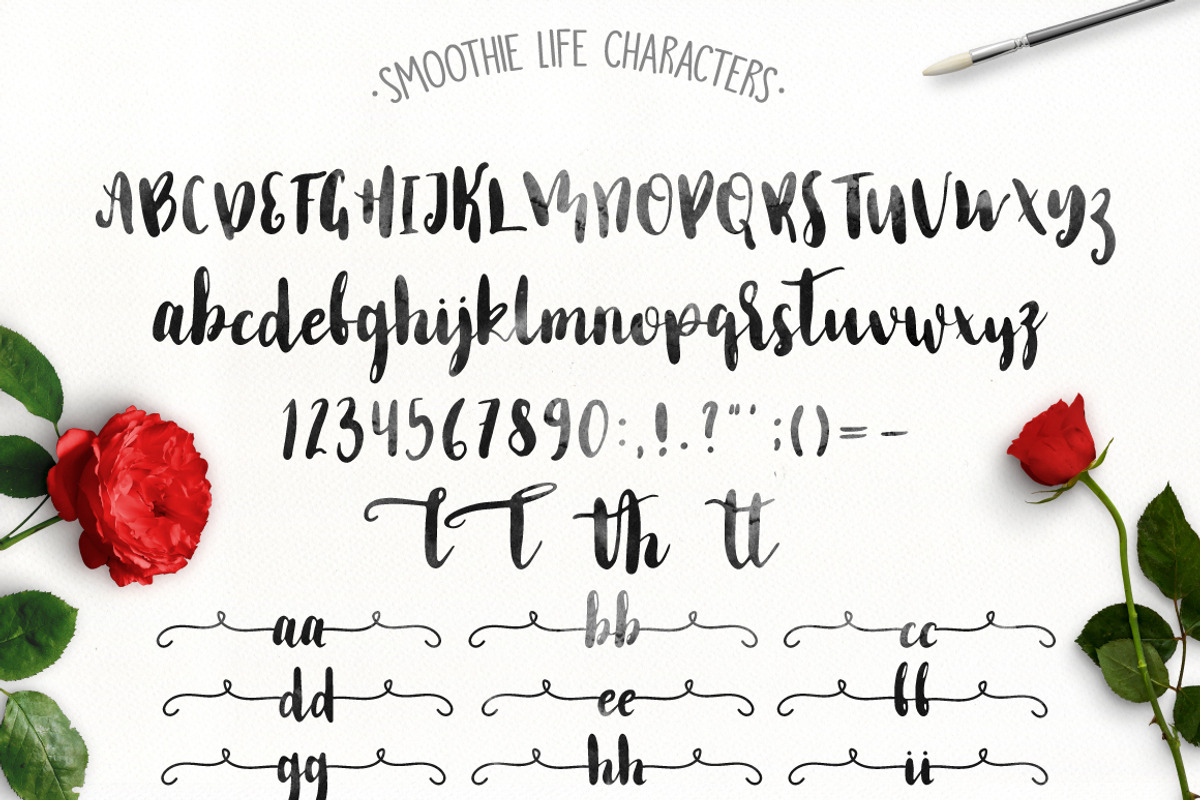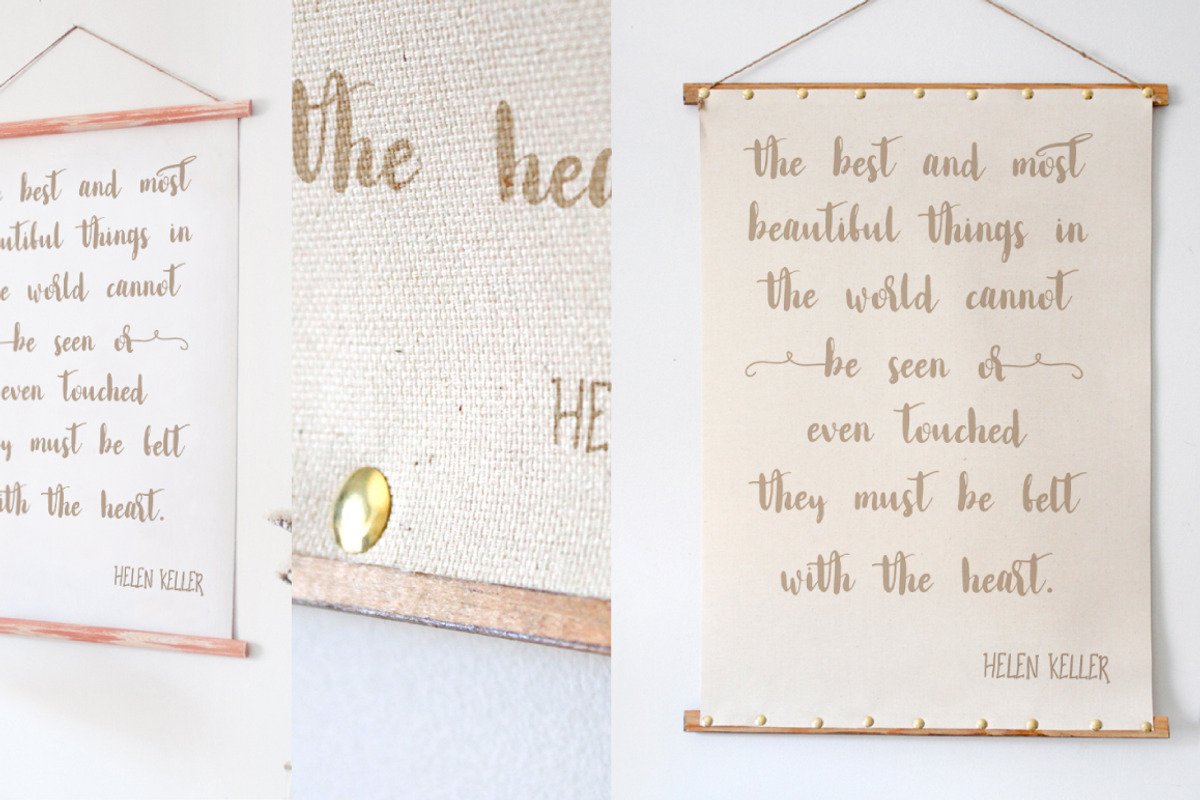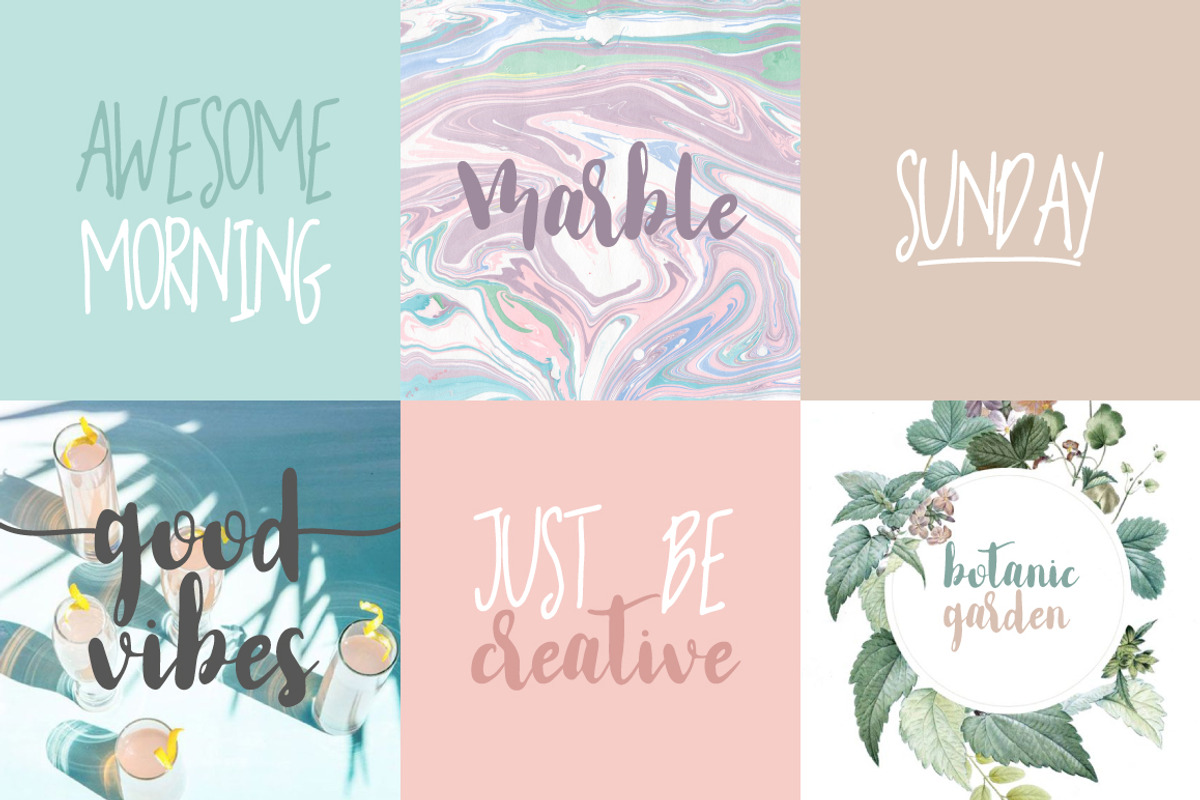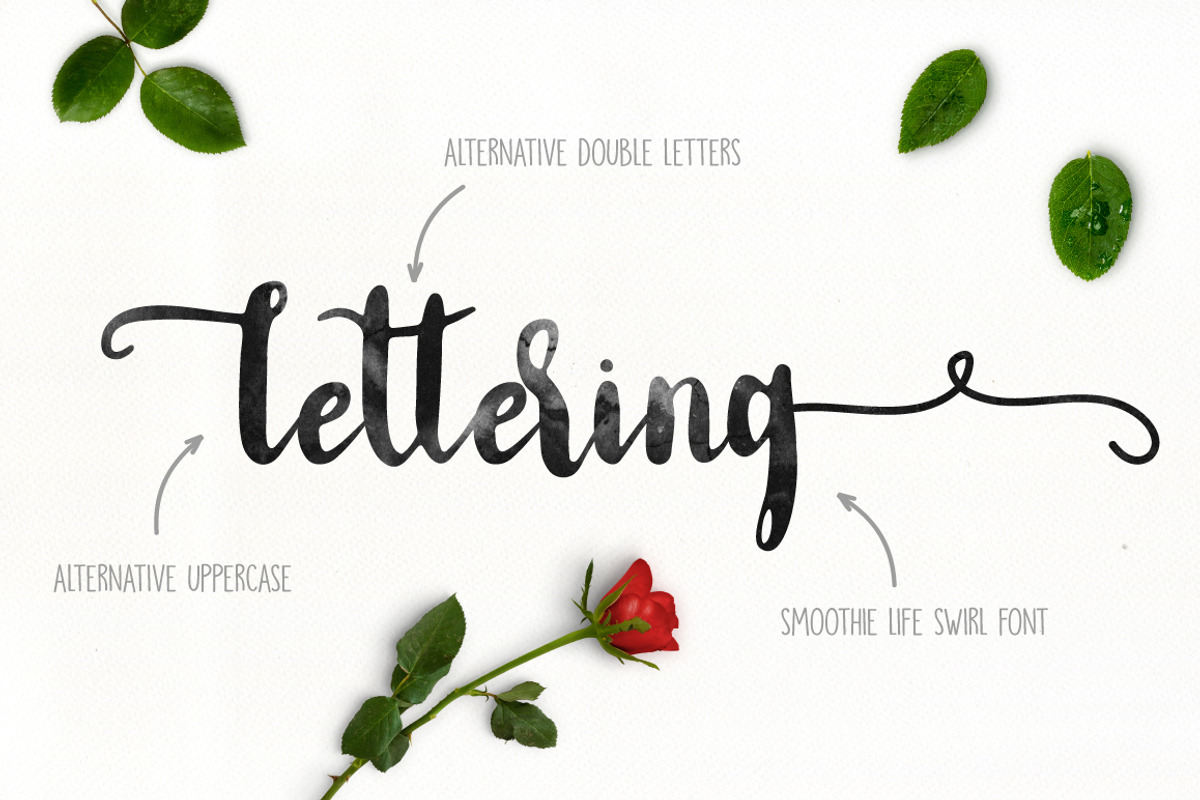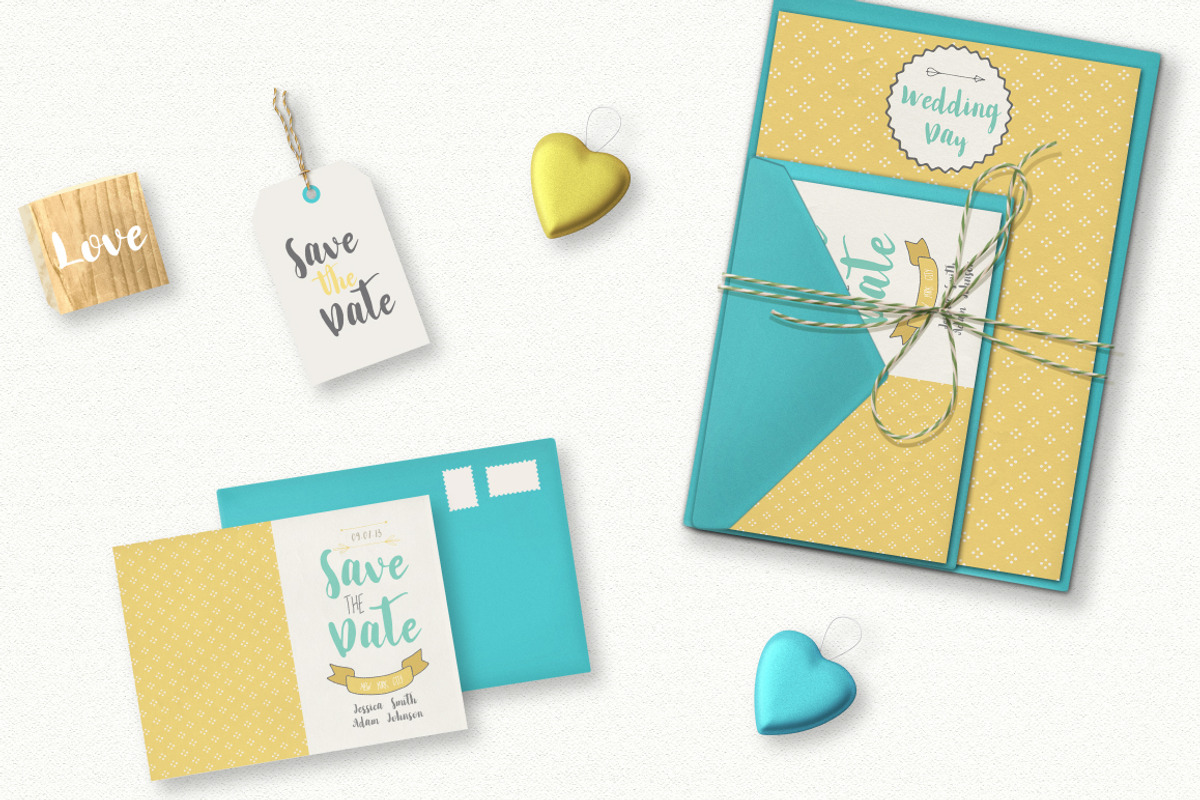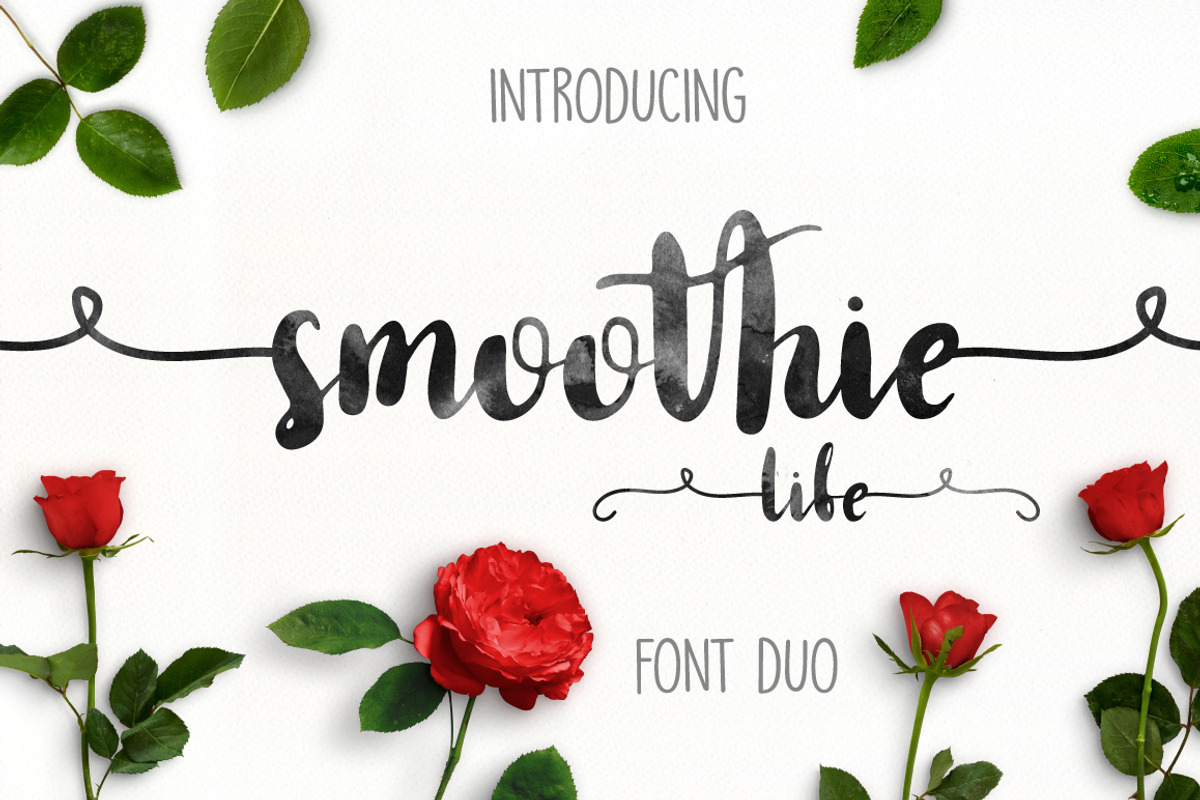
Smoothie Life [Font Duo]
Be with Smoothie Life [Font Duo]
This font is handwritten and contains alternative double letters, alternative uppercase and swirl font.
You need to make t-shirt design or invitation? Maybe you want to make poster, send a postcard to friend or a pillow? Or if you have a small shop or a cafe? Use this font for your design.